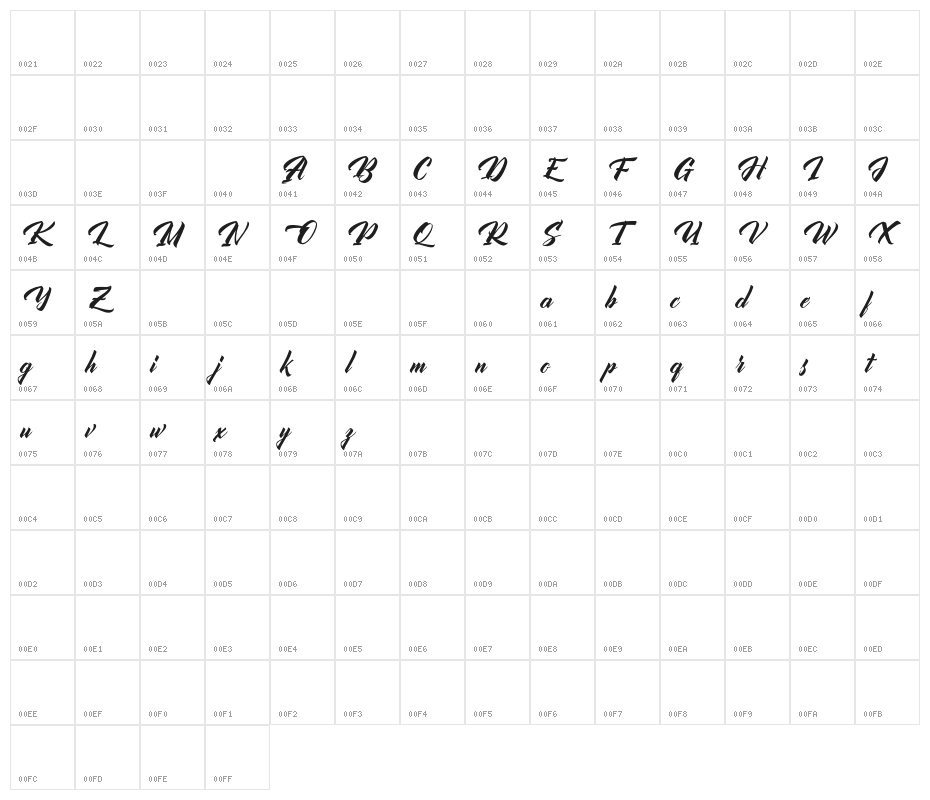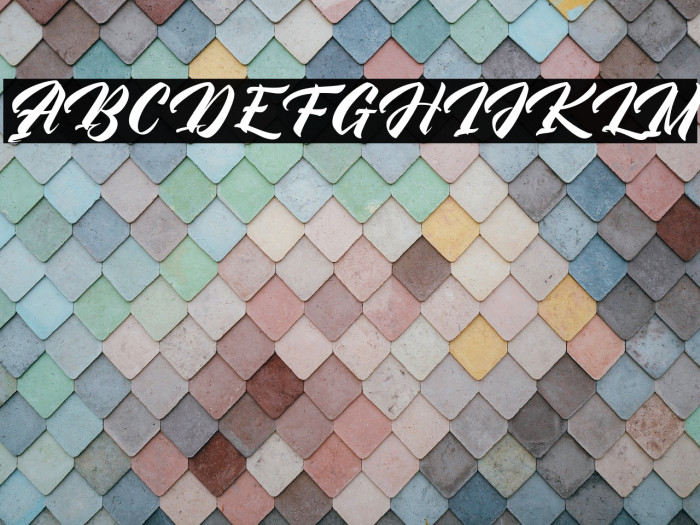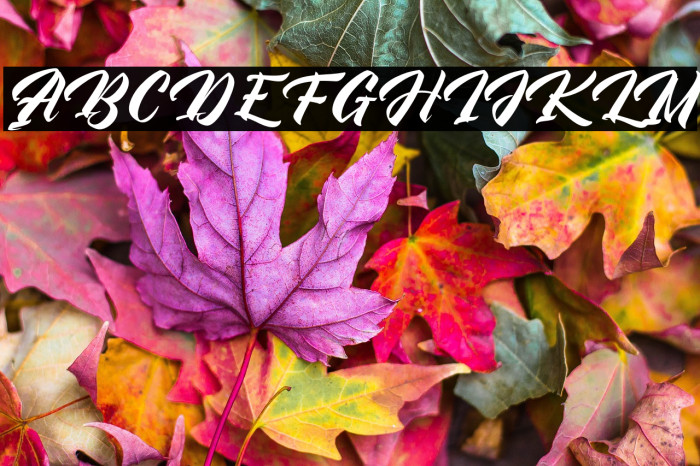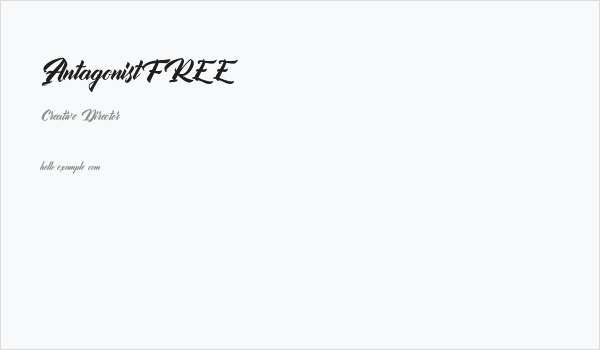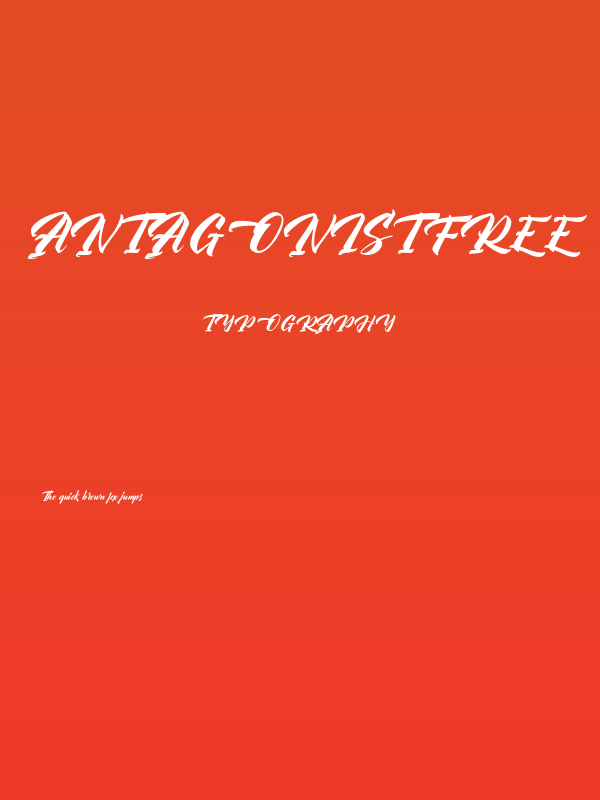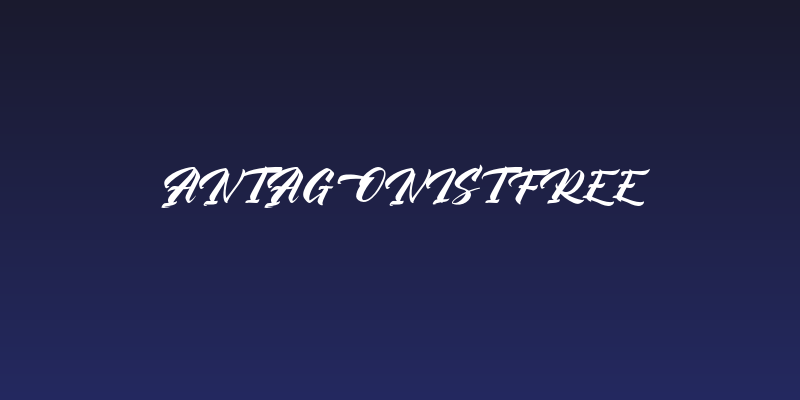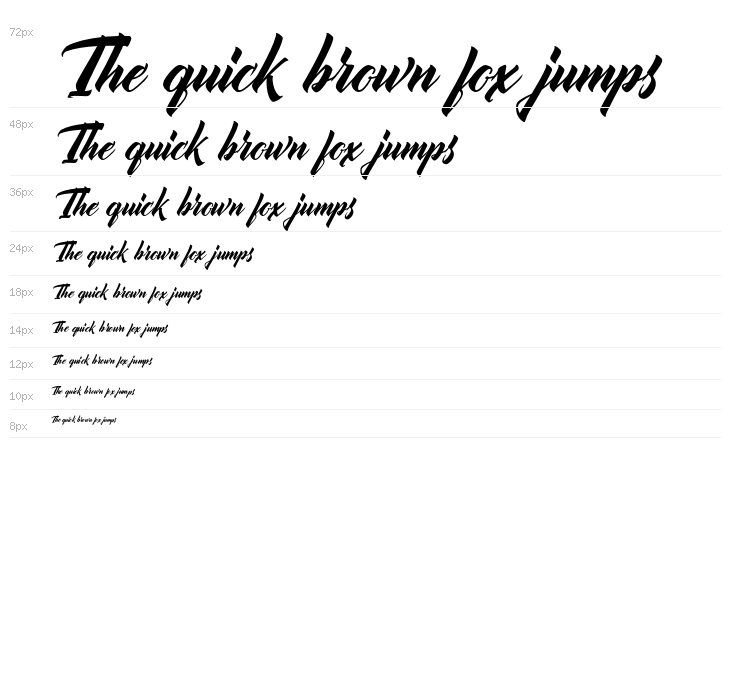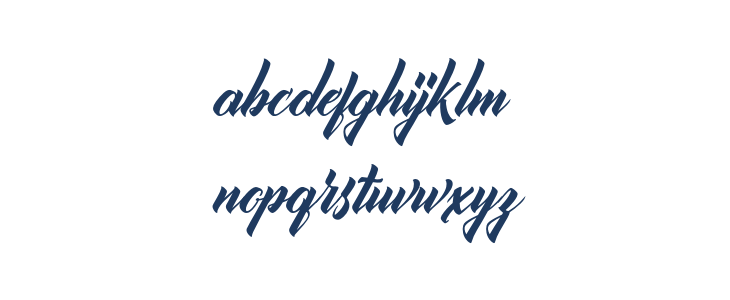
AntagonistFREE Font
AntagonistFREE Description
This font features a bold and dynamic script style, characterized by its flowing, cursive letterforms. The uppercase letters exhibit a strong presence with dramatic flourishes, while the lowercase letters maintain a consistent rhythm and elegance. The strokes are thick and expressive, giving the font a sense of movement and energy. The overall design is reminiscent of calligraphy, with a modern twist that adds a touch of sophistication. The font's unique style makes it suitable for creative and artistic projects, where a bold and eye-catching typeface is desired.